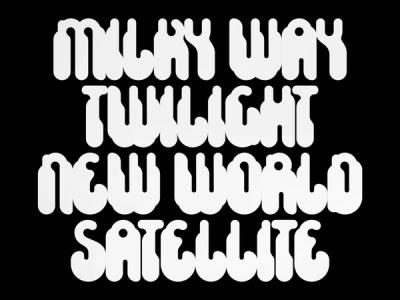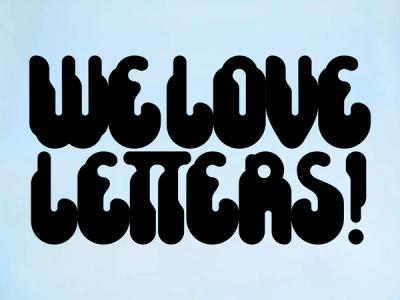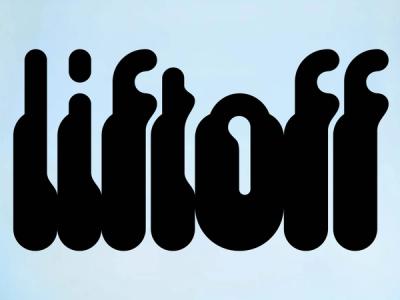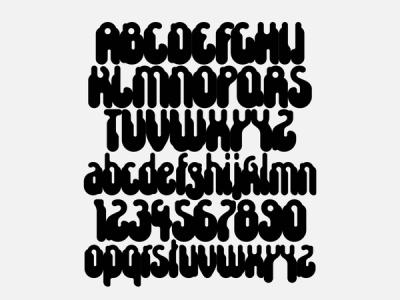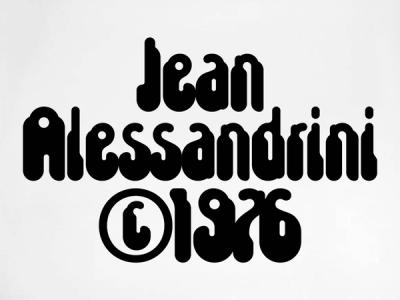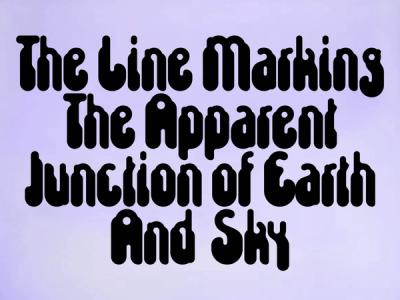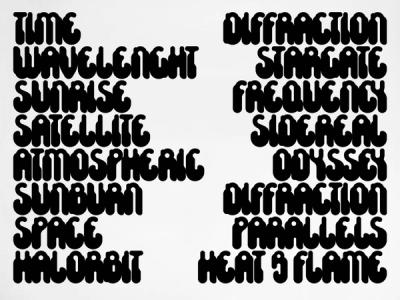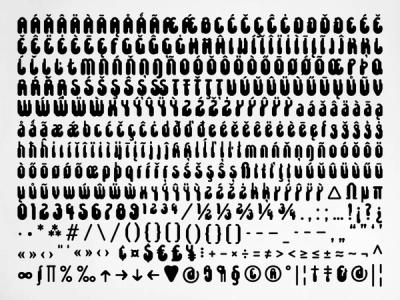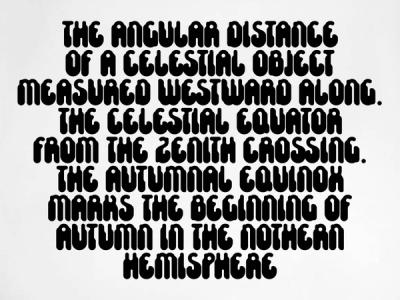
ASTRONEF TYPEFACE
It was in 1976, in the extremely popular movement of the “machinales computrices typefaces” inspired by science fiction and the post-second war movement of new worlds that Jean Alessandrini (typographer, designer, writer, illustrator, born in 1942 in Marseille) produced Astronef typeface in cut paper, this futuristic curiosity typical of the years pre-80’s era. Nearly forty years later, during the making of Revue Diorama No.2, Geometric City, Astronef was digitally developed and adapted to an extended Latin glyphset to cover a greater number of languages. The development was followed and validated by its author, and it is on his advice that Astronef is finally published today, not as a revival, but a real updated version.
ASTRONEF TYPEFACE Details
• Design
Jean Alessandrini (Original drawing 1976) and Marie-Mam Sai Bellier (Diorama Type Partners) and Guillaume Sbalchiero, 2020-2021
• Font Development
Raphaël de la Morinerie
• Publishing Year
2023
• First Apparition
Revue Diorama No.2, Geometric City
Alternates
Yy